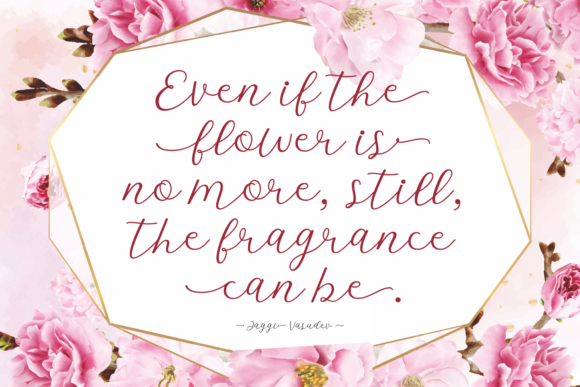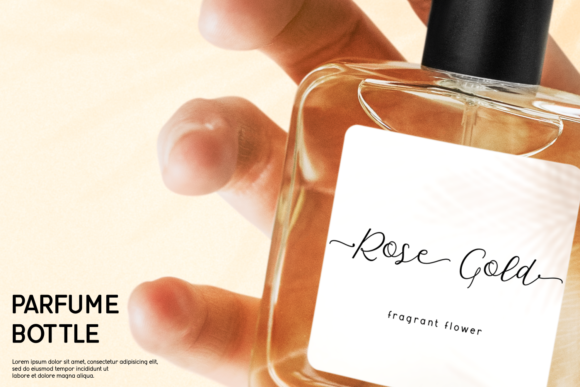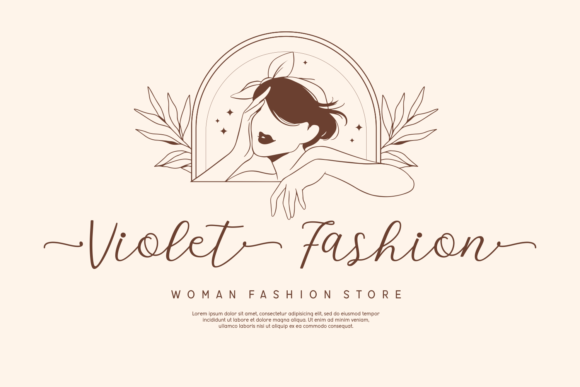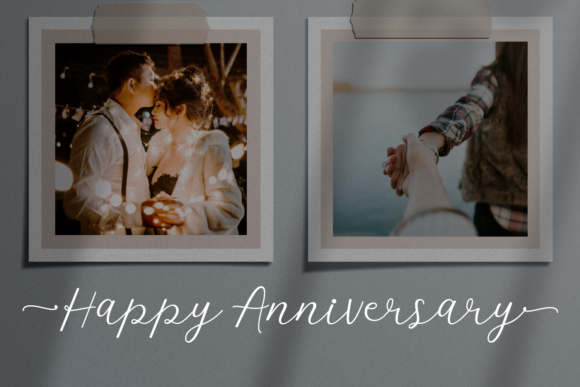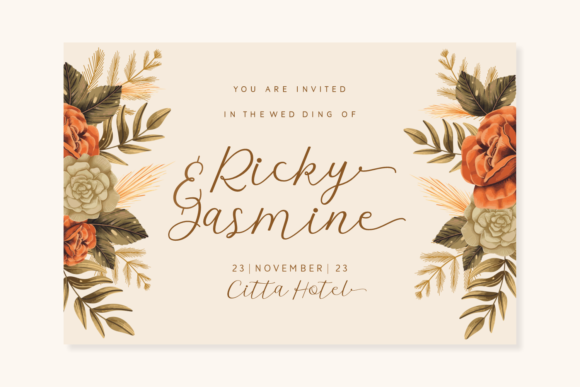
The Elegant Charm of Cannella Font: A Designer’s Delight
I’ll never forget the time I was working on a wedding invitation project, and my client asked me to create a custom design that exuded elegance and sophistication. As I began to search for the perfect font, I stumbled upon Cannella – a beautiful and elegant script font that instantly captured my attention. In this article, I’ll share my experience with Cannella, its features, and how to make the most of this stunning typeface.
A Personal Review of Cannella Font
As a designer, I was immediately drawn to Cannella’s luxurious and refined aesthetic. Here are some aspects that I love about this font:
- ✨ Elegant and sophisticated design, perfect for high-end projects
- 💃 Beautifully crafted swashes and flourishes add a touch of drama
- 📚 Supports multiple languages, making it a versatile choice
While Cannella is an exceptional font, it’s not without its quirks. Here are a few limitations to consider:
- 🤔 Some users may find the font a bit too ornate for certain projects
- ⚠️ Limited availability of condensed or bold weights
The Story Behind Cannella Font
Cannella was designed by a talented type designer who drew inspiration from traditional Italian calligraphy. The font’s name, Cannella, is derived from the Italian word for “cinnamon,” which reflects the font’s warm and inviting aesthetic. With its elegant lines and refined features, Cannella has become a popular choice among designers and crafters.
| What is Cannella font best used for? | Cannella is perfect for wedding cards, anniversary cards, quotes, fashion branding, packaging, logos, clothing, and any project that requires an elegant and sophisticated touch. |